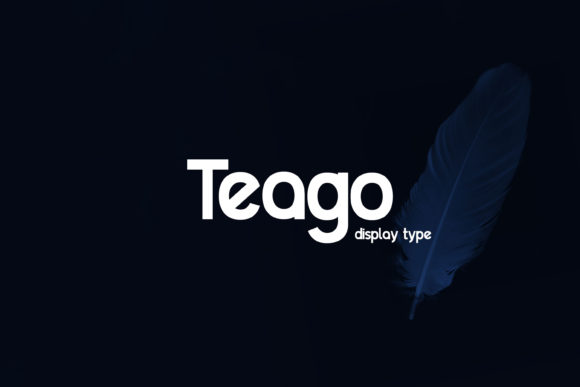
Step into a tranquil oasis where elegance flows effortlessly through your designs with Teago Font, the epitome of serenity and sophistication. This minimal and neat sans-serif font is a sanctuary for your creative endeavors, beckoning you to immerse yourself in its calming embrace.
Inspired by the hushed whispers of a tranquil spa, Teago Font exudes an air of tranquility that will effortlessly elevate your creations. Its clean lines and gentle curves evoke a sense of serenity, inviting you to craft designs that soothe the soul and captivate the senses.
With Teago Font, you'll discover a font that seamlessly adapts to your every whim, effortlessly complementing a myriad of projects. Whether you seek to create enchanting logos that exude sophistication or design serene websites that invite relaxation, Teago Font is your steadfast companion, transforming your ideas into captivating realities.
Indulge in the allure of simplicity as Teago Font weaves its magic throughout your designs. Its unassuming elegance empowers you to convey your message with clarity and grace, leaving an unforgettable mark on your audience. Experience the transformative power of Teago Font, where tranquility meets creativity, and your designs blossom into masterpieces of serenity.
Embrace the tranquility and let Teago Font guide you on a journey of creative bliss. Its calming presence will inspire you to craft designs that resonate with your soul, leaving a lasting impression on those who encounter them. Immerse yourself in the world of Teago Font, where serenity and sophistication intertwine, and your creative dreams take flight.